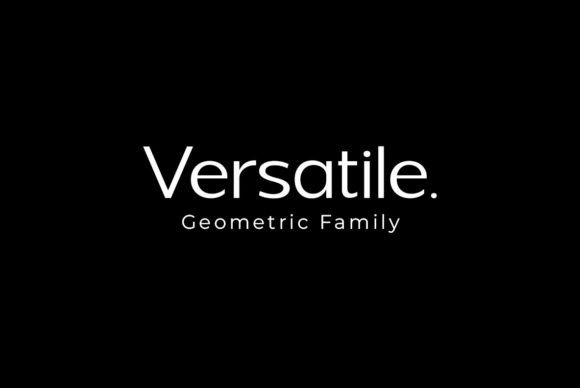
Introducing Versatile Font, the ultimate choice for tattoo enthusiasts and design aficionados alike. This sans serif font, created by the renowned InkwellTypeCo, is not just your ordinary typeface. It is a game-changer that will revolutionize your creative projects and captivate your audience.
Versatile Font is more than just a font – it is a masterpiece of design and innovation. With its cutting-edge variable font technology, it seamlessly transitions between bold and light, offering unparalleled typographic flexibility. Imagine effortlessly adjusting the weight of your letters to perfectly match the mood and style of your content. It's like having a personal typographer at your fingertips.
But it doesn't stop there. Versatile Font takes your reading experience to a whole new level. Its dynamic design ensures a smooth and engaging journey through every word, making it ideal for modern digital interfaces and captivating print projects. Whether you're designing a website, crafting a poster, or creating a tattoo quote, Versatile Font will elevate your work to new heights.
Embrace the power of customization with Versatile Font. With its extensive range of weights, you have the ability to evoke a wide spectrum of emotions – from bold and impactful to delicate and ethereal. Let your creativity run wild as you express your unique style and personality through typography.
When it comes to marketing, Versatile Font is a force to be reckoned with. Its eye-catching appeal instantly grabs attention, making it irresistible to users seeking the perfect font for their projects. Stand out from the crowd and leave a lasting impression with this remarkable font that speaks volumes.
In conclusion, Versatile Font is not just a font – it's a transformative tool that empowers you to create unforgettable designs. With its seamless transitions, engaging reading experience, and unlimited customization options, it's no wonder it's the top choice for tattoo quotes and beyond. Don't settle for ordinary – embrace the extraordinary with Versatile Font.